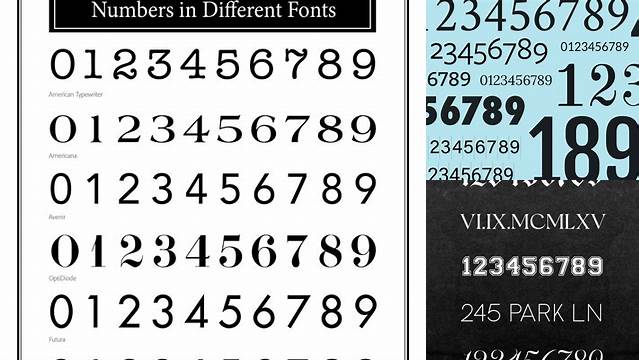
Number Fonts: Types & How To Choose The Best One
Choosing the right font for numbers is crucial in various contexts, from data visualization and financial reports to website design and branding. The legibility and aesthetic appeal of numerals can significantly impact how information is perceived and understood. This article explores different types of fonts suitable for numbers, highlighting their characteristics and ideal use cases.
Serif fonts are characterized by the small decorative strokes, or serifs, at the end of each character. These fonts often convey a sense of tradition, authority, and elegance. When it comes to numbers, serif fonts can provide a classic and refined look, making them suitable for formal documents, financial reports, and publications where a sense of history and credibility is desired. Examples of popular serif fonts for numbers include Times New Roman, Garamond, and Georgia. In Times New Roman, the numerals have a traditional appearance with clear serifs that enhance readability in dense text. Garamond offers a more refined and elegant look, with its numerals having a graceful and slightly more stylized design. Georgia, designed for screen readability, provides numerals that are clear and legible even at smaller sizes, making it a reliable choice for digital applications. When using serif fonts for numbers, it's important to consider the overall design and ensure that the numerals complement the text and other visual elements. Serif fonts can bring a touch of sophistication to projects. For instance, in annual reports, using a serif font like Garamond for financial figures can add a sense of prestige and trustworthiness. Similarly, in academic papers, Times New Roman can provide a familiar and authoritative look. However, it's essential to avoid overly ornate serif fonts that can make numbers difficult to read, especially in data-heavy contexts. The key is to balance aesthetic appeal with clarity, ensuring that the numerals are easily distinguishable and contribute to the overall readability of the document. So, guys, if you're aiming for a classic, trustworthy vibe, serif fonts are your go-to!
Sans-serif fonts, lacking the decorative serifs, are known for their clean, modern, and minimalist appearance. These fonts are widely used in contemporary designs, digital interfaces, and applications where clarity and legibility are paramount. When selecting sans-serif fonts for numbers, consider those that offer clear and distinct numeral designs to ensure easy readability, especially in data-rich environments. Helvetica, Arial, and Open Sans are popular choices for sans-serif fonts. Helvetica is a classic sans-serif font known for its neutrality and clarity, making it highly versatile for various applications. Its numerals are clean and well-proportioned, ensuring easy readability in tables, charts, and graphs. Arial, similar to Helvetica, provides a slightly more condensed design, making it suitable for situations where space is limited. Open Sans is a humanist sans-serif font designed with a focus on readability across print, web, and mobile interfaces. Its numerals are clear and friendly, making it an excellent choice for data visualization and user interfaces. Sans-serif fonts are particularly effective in digital environments due to their clean lines and legibility on screens. They work well in dashboards, infographics, and websites where data is presented dynamically. For instance, in a financial dashboard, using a sans-serif font like Open Sans ensures that key performance indicators (KPIs) are easily readable and visually appealing. Similarly, in a mobile app displaying statistical data, Arial can provide a clear and concise presentation of numbers. When using sans-serif fonts for numbers, it's important to maintain consistency with the overall design and ensure that the numerals align well with other text elements. Avoid using overly stylized sans-serif fonts that can compromise readability, especially in contexts where quick comprehension is essential. The goal is to choose a font that enhances clarity and provides a modern, professional look. So, if you're after a clean, modern look, sans-serif fonts are totally your jam!
Monospace Fonts
Monospace fonts, also known as fixed-width fonts, are characterized by each character occupying the same horizontal space. This unique attribute makes them particularly useful in contexts where alignment and uniformity are crucial, such as in coding, financial statements, and tabular data. When selecting monospace fonts for numbers, prioritize those that offer clear and distinct numeral designs to avoid confusion, especially in situations where precise data entry and analysis are required. Courier New, Consolas, and Monaco are popular monospace fonts. Courier New is a classic monospace font that has been widely used in typewriters and early computer systems. Its numerals are clear and easily distinguishable, making it a reliable choice for coding and displaying tabular data. Consolas, designed by Microsoft, is a modern monospace font optimized for screen readability. Its numerals are designed with clear differentiation to minimize ambiguity, making it suitable for coding environments and terminal applications. Monaco, a popular font in macOS, offers a clean and legible monospace design with distinct numerals. Monospace fonts are particularly useful in financial statements where numbers need to be precisely aligned for easy comparison. For instance, in an income statement, using a monospace font ensures that the digits in each column line up perfectly, facilitating quick analysis and identification of key trends. Similarly, in coding, monospace fonts make it easier to identify errors and maintain code structure. When using monospace fonts for numbers, it's important to ensure that the font is consistently applied throughout the document or application to maintain alignment and uniformity. Avoid mixing monospace fonts with proportional fonts, as this can disrupt the visual consistency and make it harder to read the data. The goal is to choose a font that provides clear and consistent numeral presentation, making it easier to work with structured data. If you're dealing with code or spreadsheets, monospace fonts are gonna be your best friend for keeping everything aligned and easy to read!
Display Fonts
Display fonts are designed to be eye-catching and attention-grabbing, making them suitable for headings, titles, and other prominent design elements. These fonts often feature unique and stylized designs that can add personality and flair to a project. When selecting display fonts for numbers, it's important to balance aesthetic appeal with legibility, ensuring that the numerals are easily recognizable and don't compromise the overall message. Impact, Bebas Neue, and Futura are popular display fonts. Impact is a bold and condensed sans-serif font that commands attention. Its numerals are strong and impactful, making it suitable for large headings and posters. Bebas Neue is a clean and modern sans-serif font with tall and narrow letterforms. Its numerals are sleek and stylish, making it a popular choice for contemporary designs. Futura is a geometric sans-serif font that exudes a sense of modernity and efficiency. Its numerals are clean and well-proportioned, making it suitable for both headings and body text. Display fonts are particularly effective in marketing materials where numbers need to stand out and convey a specific message. For instance, in an advertising campaign, using a display font like Impact for pricing information can grab the viewer's attention and create a sense of urgency. Similarly, in a website banner, Bebas Neue can add a touch of sophistication and style. When using display fonts for numbers, it's important to use them sparingly and in contexts where they can have the most impact. Avoid using display fonts for large blocks of text or in situations where readability is paramount. The goal is to choose a font that enhances the visual appeal of the project without sacrificing clarity and comprehension. So, if you want your numbers to pop and make a statement, display fonts are the way to go, just don't overdo it!
Script Fonts
Script fonts mimic the flowing strokes of handwriting, adding a touch of elegance and personalization to designs. These fonts are often used in invitations, greeting cards, and other decorative applications where a sense of warmth and creativity is desired. When selecting script fonts for numbers, it's crucial to prioritize legibility, as overly ornate or stylized script fonts can make numerals difficult to decipher. Brush Script, Edwardian Script, and Pacifico are popular script fonts. Brush Script is a casual and informal script font that resembles brushstrokes. Its numerals have a hand-drawn feel, making it suitable for informal invitations and creative projects. Edwardian Script is an elegant and formal script font with elaborate swashes and flourishes. Its numerals have a refined appearance, making it suitable for wedding invitations and upscale designs. Pacifico is a flowing and friendly script font inspired by American surf culture. Its numerals have a relaxed and approachable feel, making it suitable for casual websites and social media graphics. Script fonts are particularly effective in creating a personal and inviting atmosphere. For instance, in a wedding invitation, using Edwardian Script for the date and time can add a touch of elegance and romance. Similarly, in a handmade greeting card, Brush Script can convey a sense of warmth and sincerity. When using script fonts for numbers, it's important to use them sparingly and in contexts where they complement the overall design. Avoid using script fonts for large blocks of text or in situations where clarity is paramount. The goal is to choose a font that enhances the visual appeal of the project without sacrificing readability. If you're aiming for an elegant, handwritten touch, script fonts can be beautiful, but make sure they're still easy to read!
Considerations for Choosing Fonts for Numbers
Choosing the right font for numbers involves several considerations to ensure clarity, readability, and aesthetic appeal. These include:
- Context: Consider where the numbers will be used. A formal report requires a different font than a social media graphic.
- Readability: Ensure the numbers are easily legible, especially in small sizes or dense text.
- Consistency: Maintain a consistent font style throughout the document or design.
- Alignment: Ensure numbers align properly, particularly in tables and financial statements.
- Accessibility: Choose fonts that are accessible to people with visual impairments.
By carefully considering these factors, you can select the most appropriate font for your numbers, enhancing both their visual appeal and their effectiveness in conveying information. So, remember to think about where your numbers are gonna be, make sure everyone can read them easily, and keep everything consistent. That's the key to picking the perfect font!
In conclusion, the world of fonts for numbers is vast and varied, offering a plethora of options to suit different needs and preferences. Whether you're aiming for a classic, modern, or decorative look, understanding the characteristics of different font types will enable you to make informed decisions and create visually compelling and effective designs. So go ahead, explore the different font options and find the perfect match for your project! Have fun experimenting, guys!